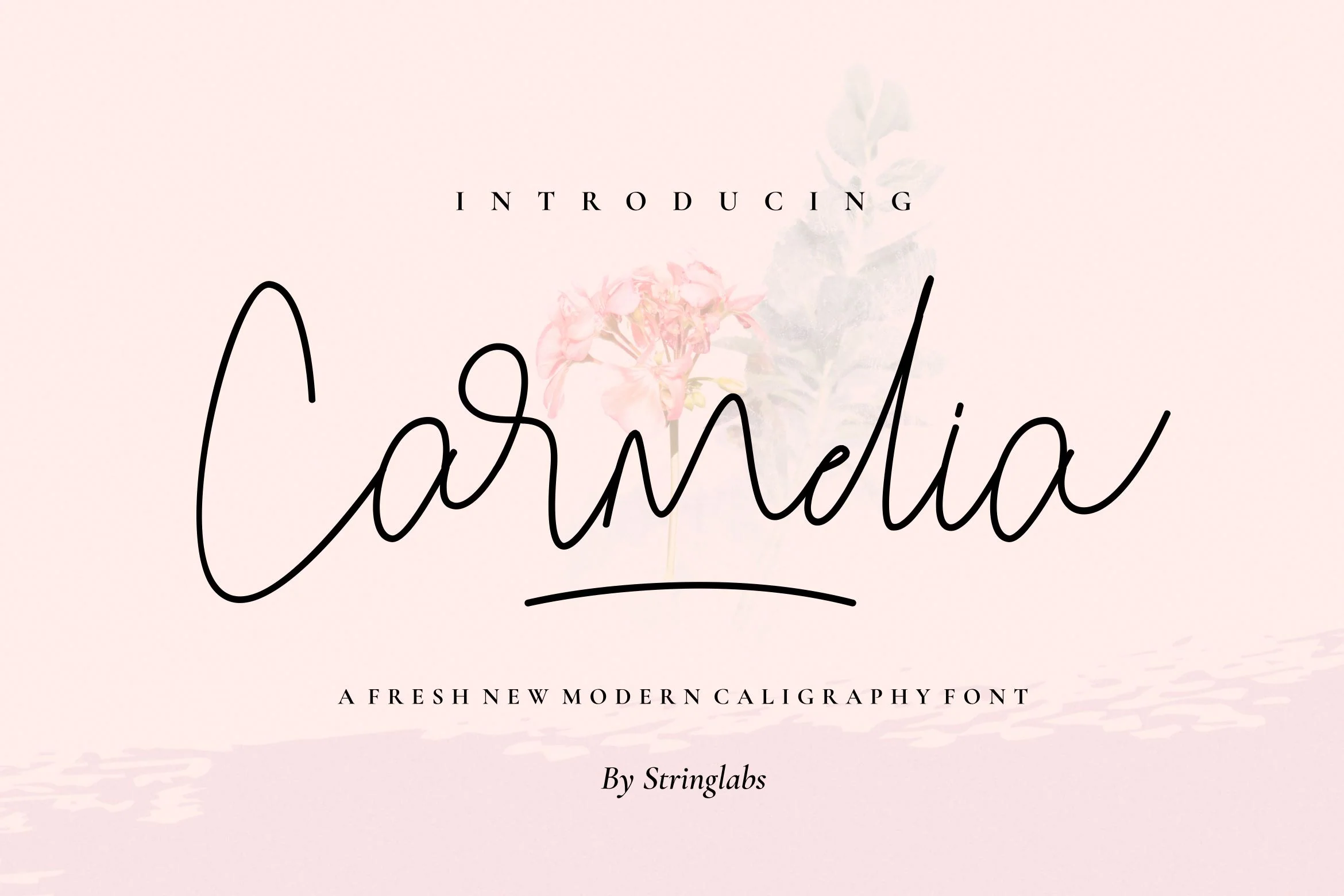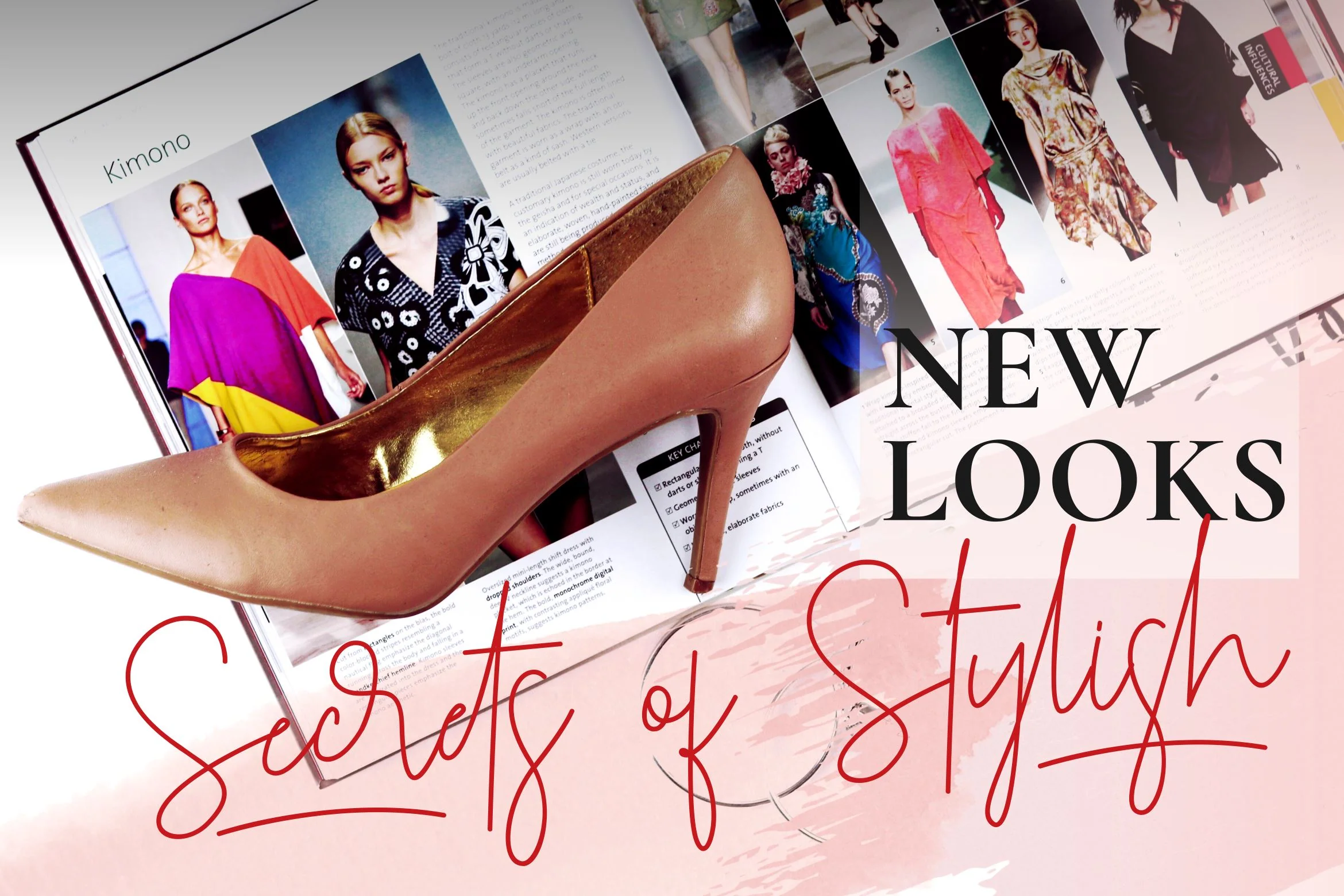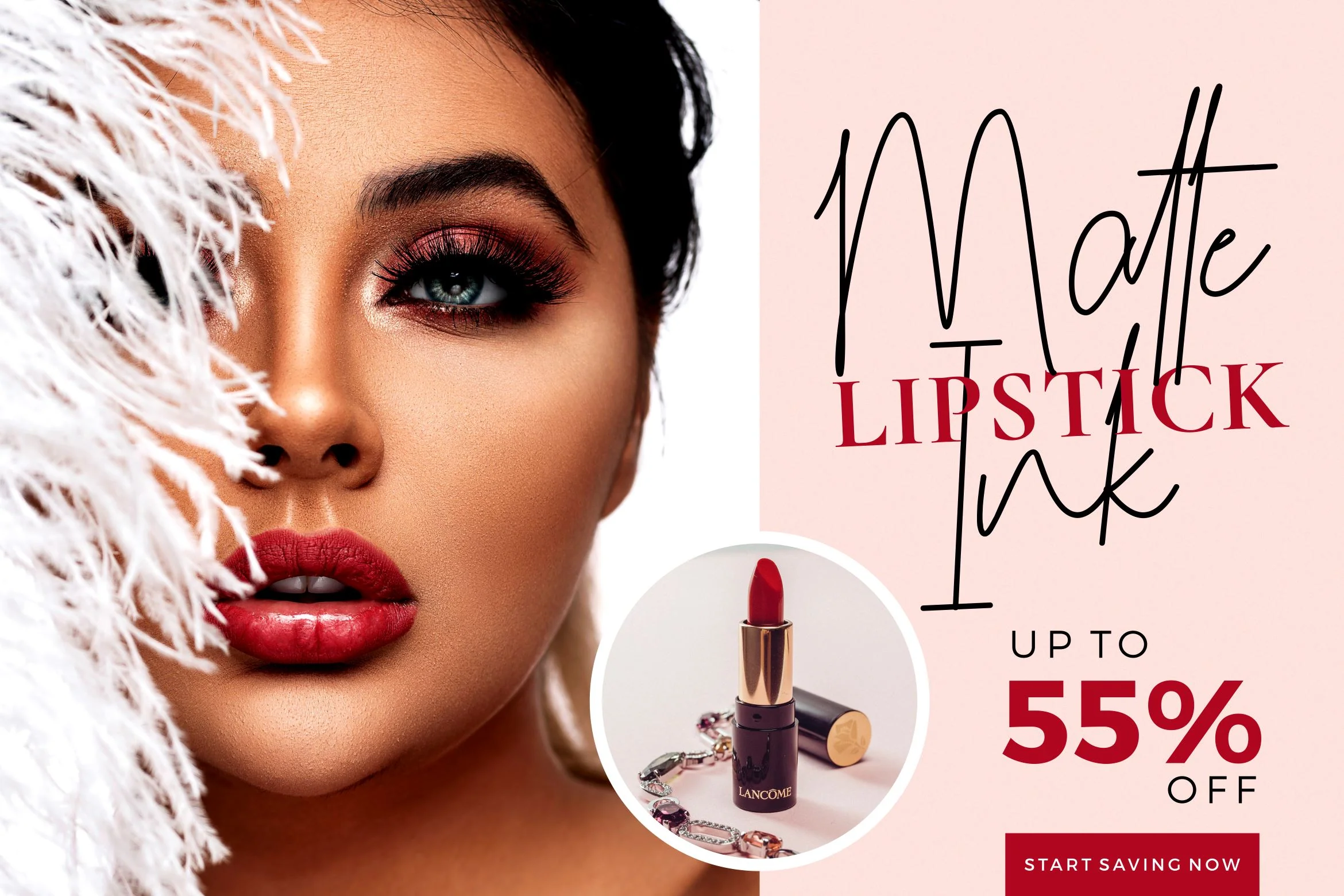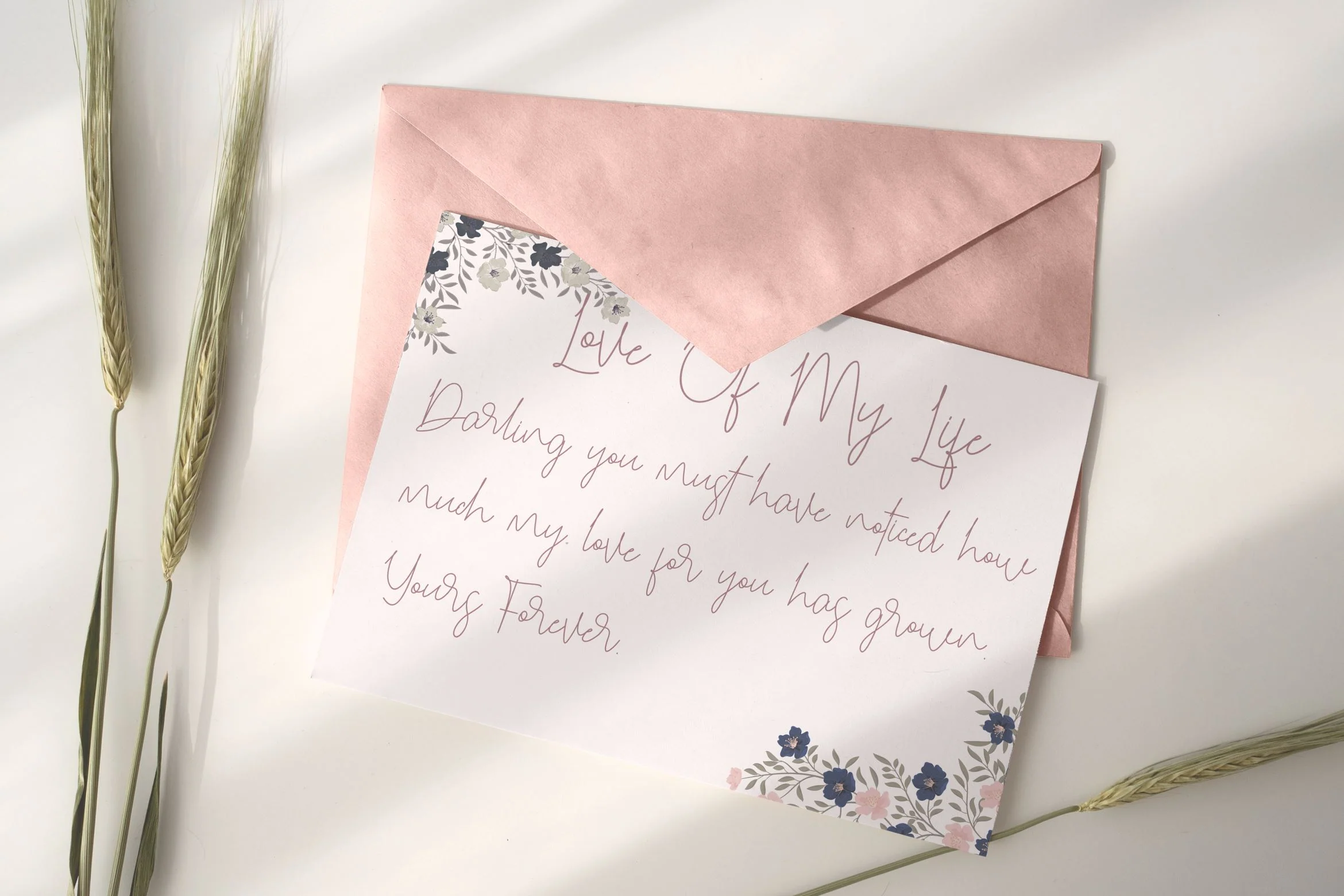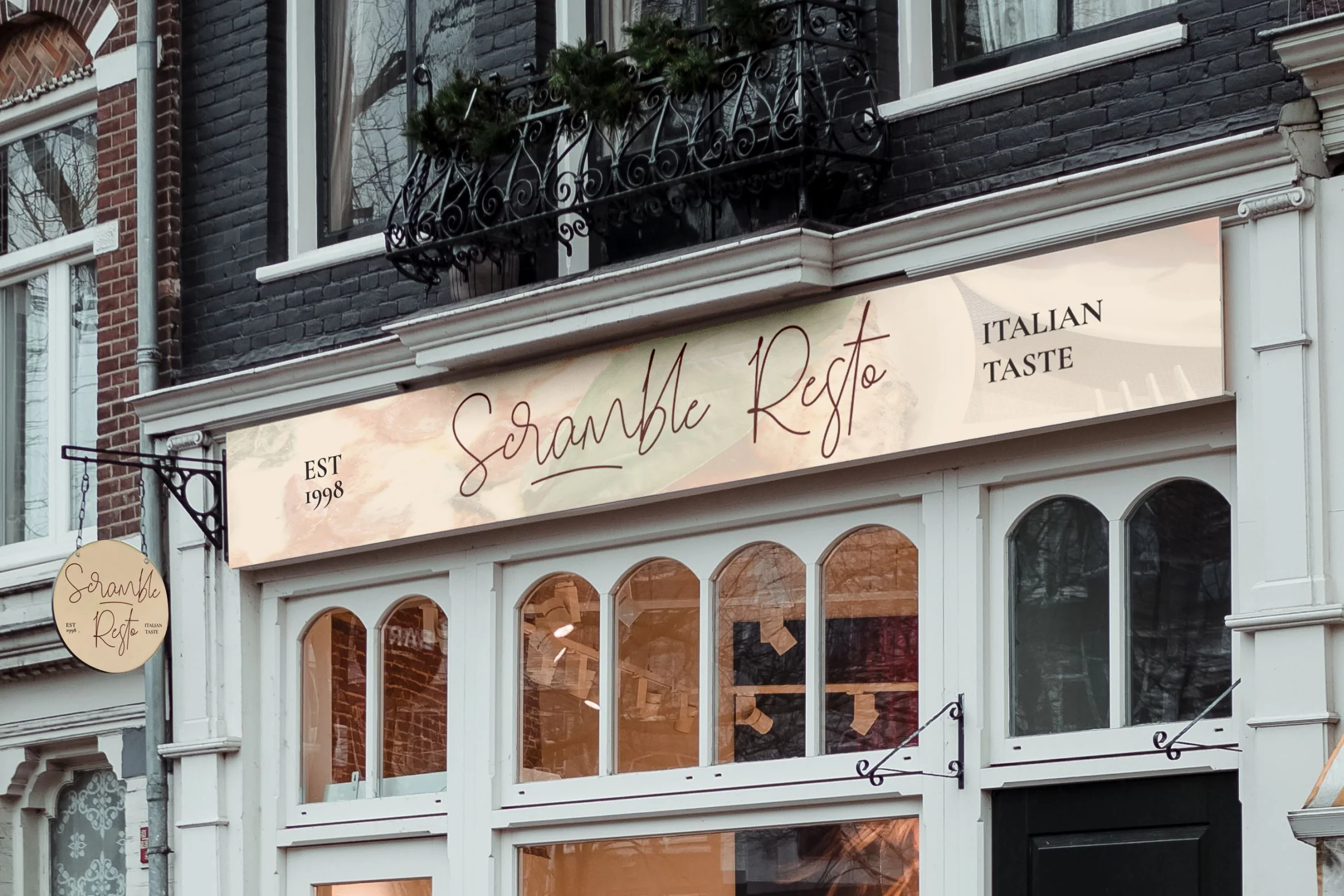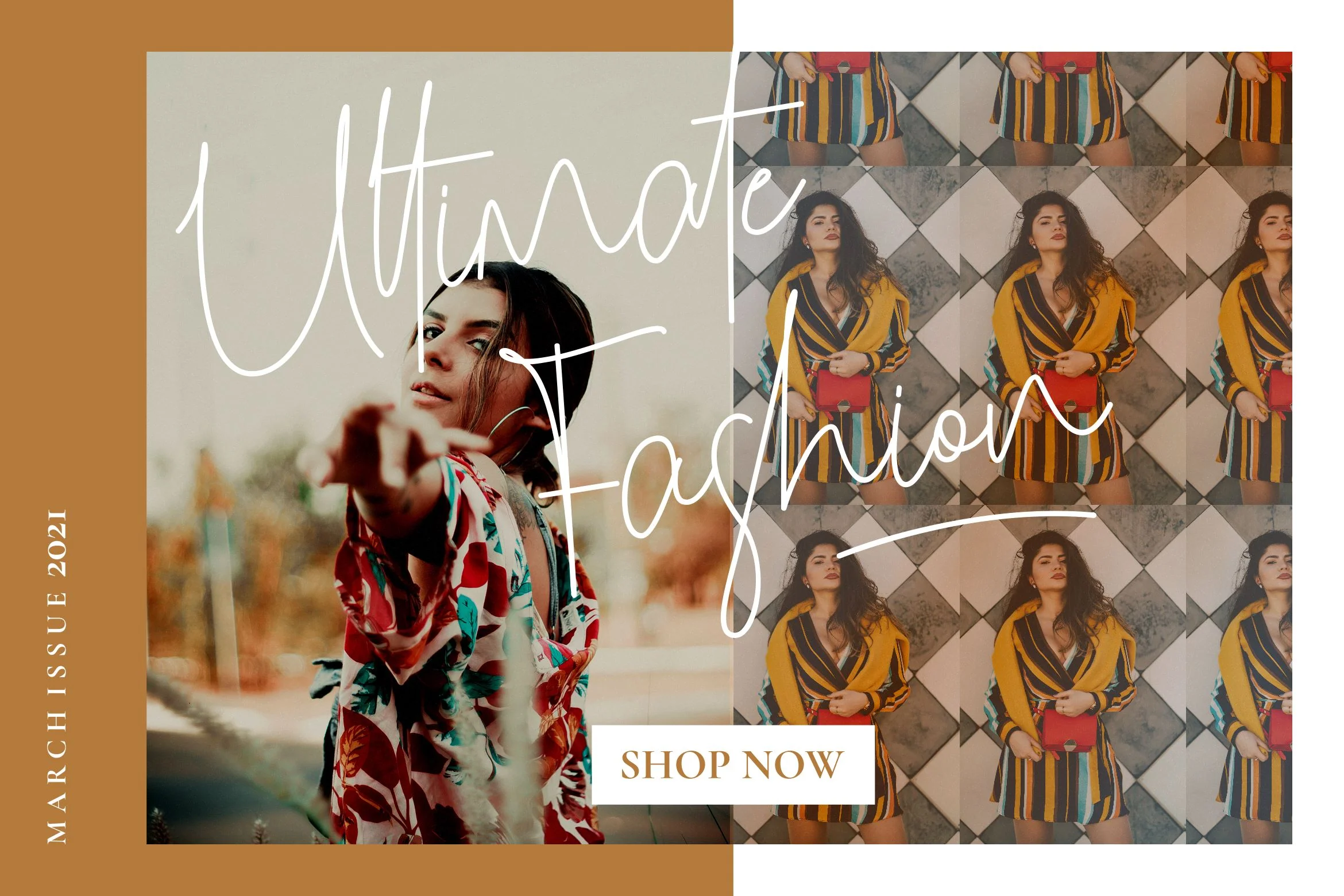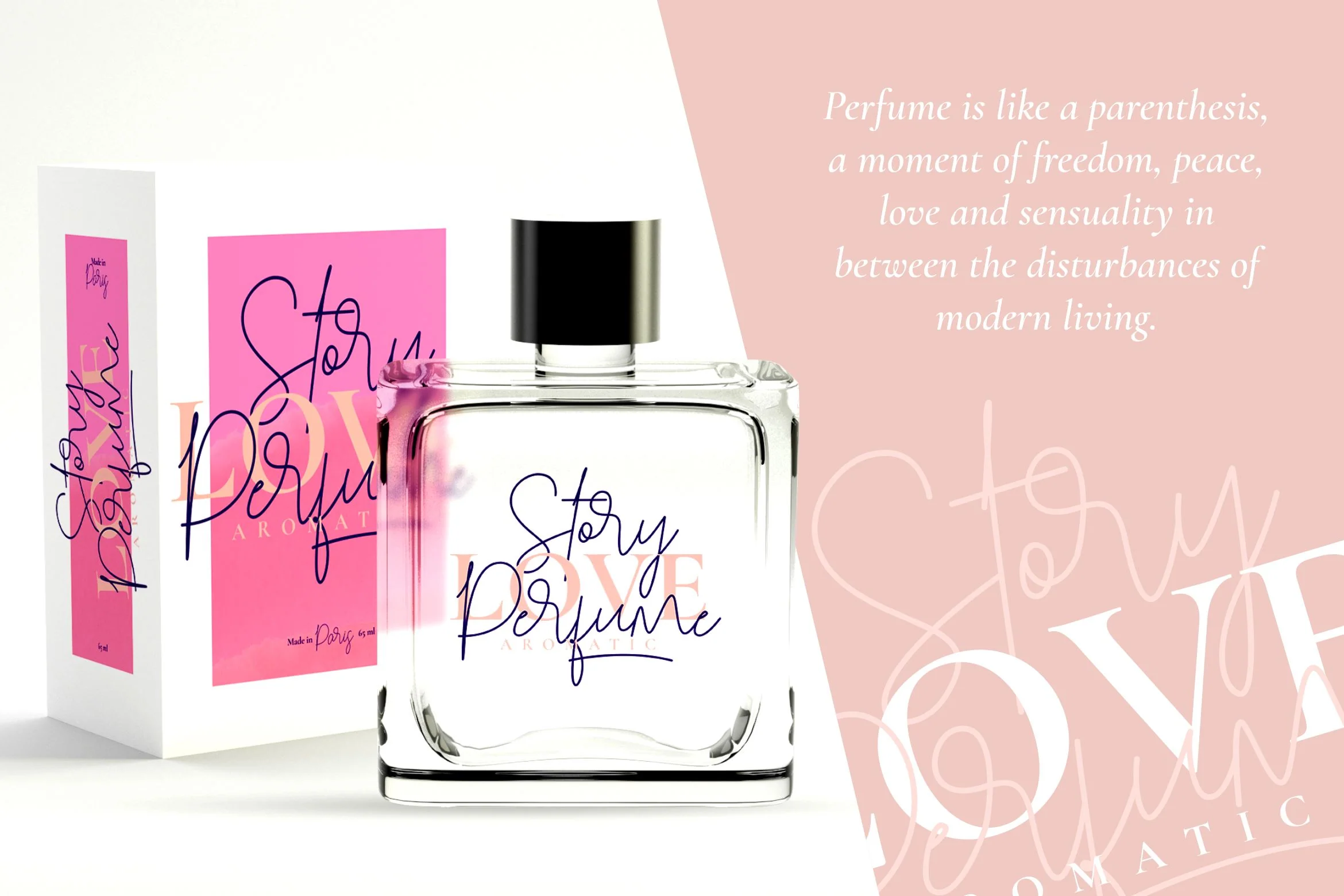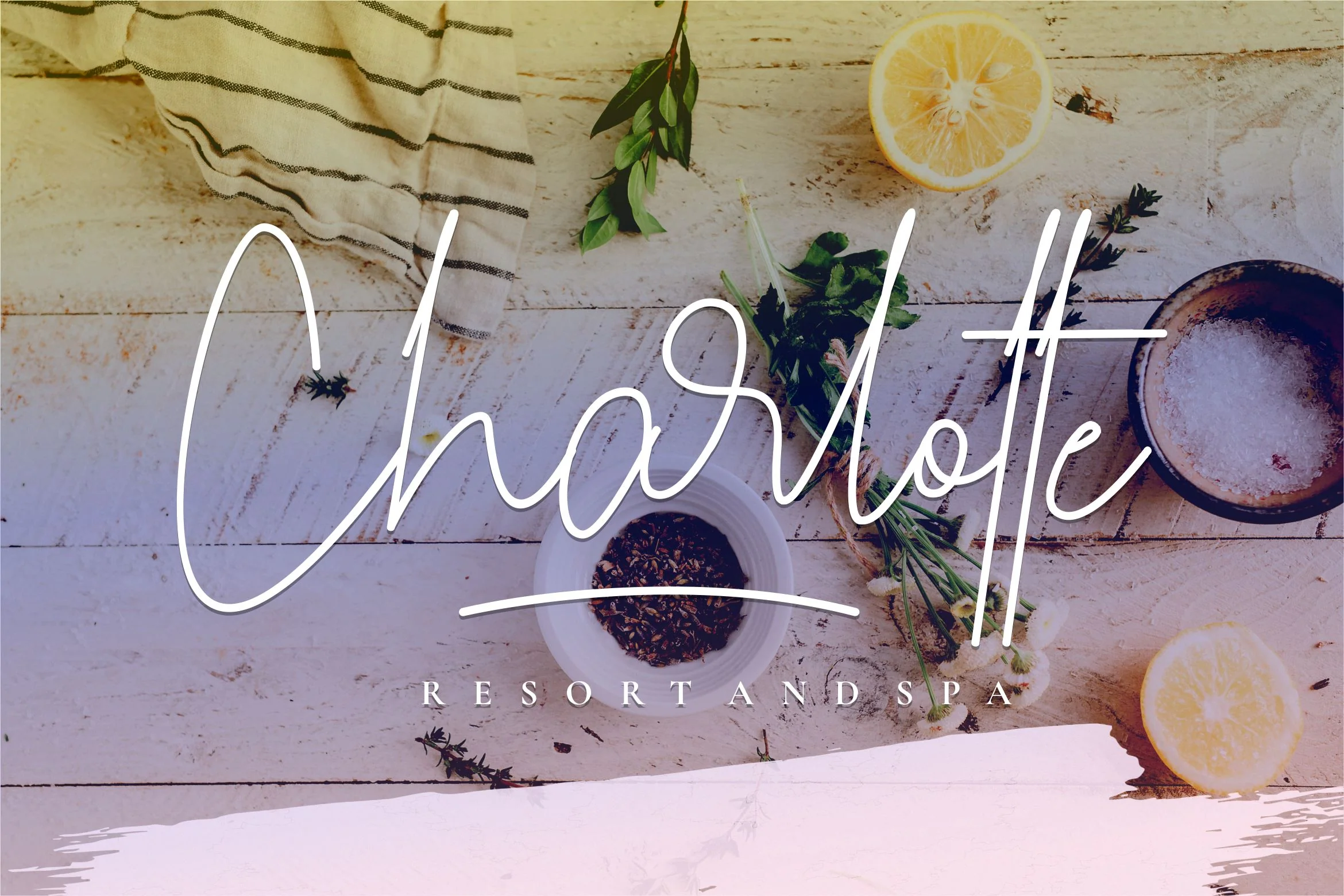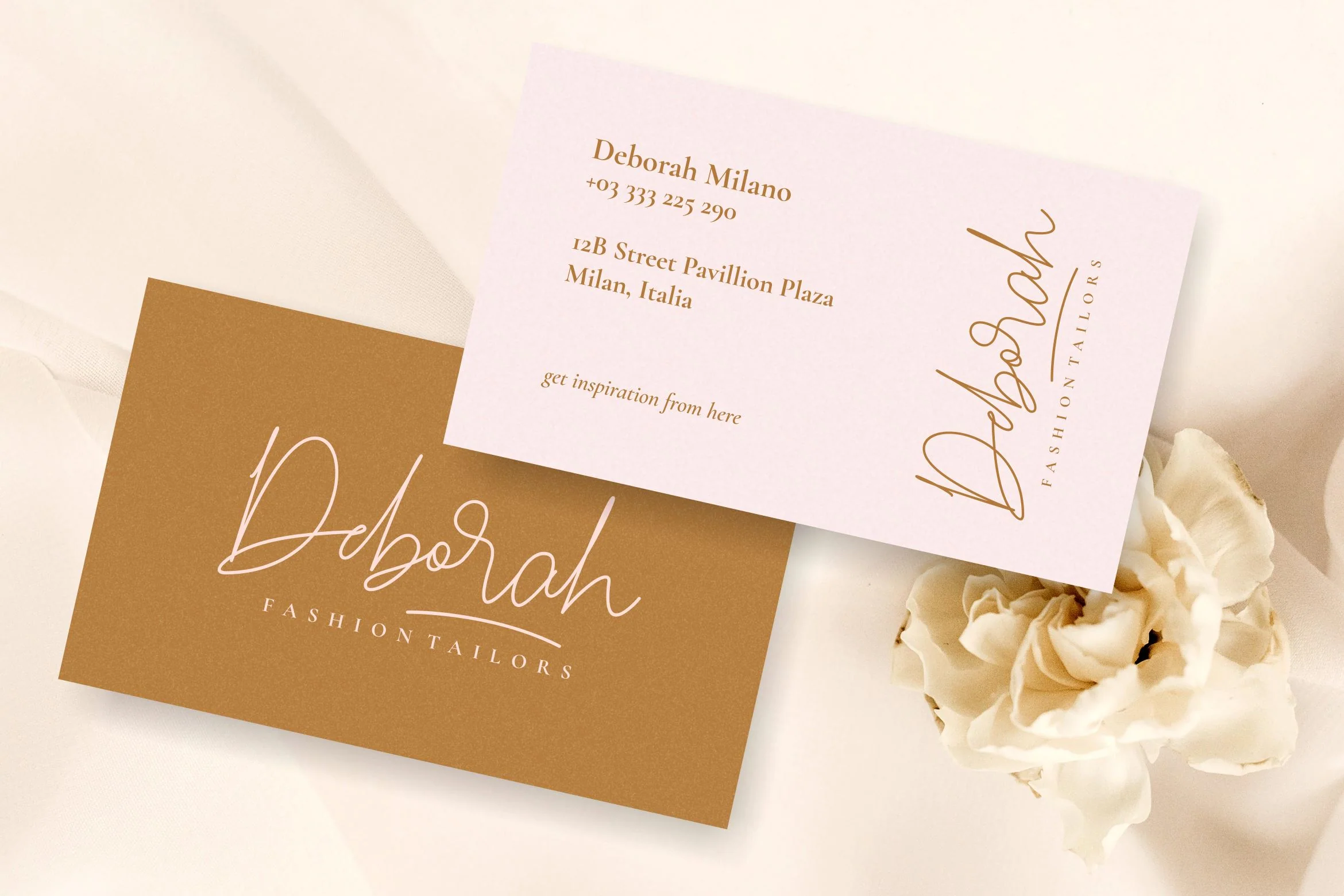
Carmelia - Modern Calligraphy Font
Introducing Carmelia - Modern Calligraphy Font
This Font can be used for any variety of purposes, such as: Â
Photography, Wedding, Ceremony, Packaging Products, Logo Type, Branding, Calligraphy, Website/Blog, Headline Magazine, and also can be used for Business purpose.
This Font Template contains Classy, Elegant, Creative, Cool and has a Unique Concept.
- Alternate Characters
Introducing Carmelia - Modern Calligraphy Font
This Font can be used for any variety of purposes, such as: Â
Photography, Wedding, Ceremony, Packaging Products, Logo Type, Branding, Calligraphy, Website/Blog, Headline Magazine, and also can be used for Business purpose.
This Font Template contains Classy, Elegant, Creative, Cool and has a Unique Concept.
- Alternate Characters